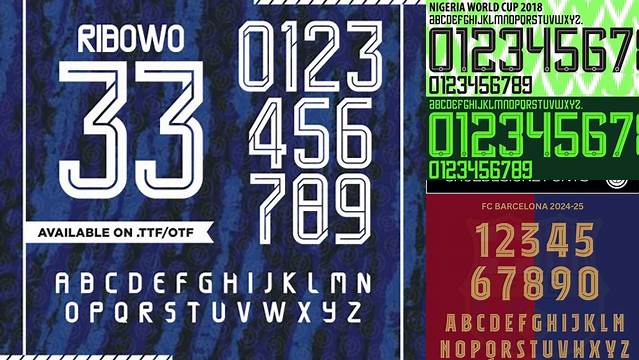
Free Soccer Jersey Fonts: Download & Customize Your Kit
Are you a soccer enthusiast looking to personalize your team's jerseys? Or perhaps a designer working on a soccer-themed project? The font you choose for the names and numbers on a jersey can significantly impact its overall look and feel. Finding the right soccer jersey font can be a game-changer, making your team stand out on the field or your design project truly shine. Lucky for you, there are numerous options available for soccer jersey fonts free download, and this article will guide you through everything you need to know.
Why Font Choice Matters for Soccer Jerseys
The font on a soccer jersey isn't just about legibility; it's a crucial element of the jersey's design. The font contributes significantly to the overall aesthetic, conveying the team's personality and style. A bold, modern font can project a sense of power and dynamism, while a more classic, elegant font can evoke tradition and history. The right font helps create a cohesive and professional look, ensuring that the team looks its best on the field. Choosing the perfect font isn't just about aesthetics; it's also about ensuring readability and visibility. The numbers and names on the back of a jersey need to be easily seen by spectators, referees, and even fellow players. A font that's too thin, too decorative, or too small can make it difficult to identify players, especially from a distance. This is why many sports fonts are designed with thick, clear lines and ample spacing. Beyond aesthetics and legibility, the font also plays a role in branding and marketing. Many professional soccer clubs have custom fonts that are unique to their brand, helping them stand out and create a distinctive identity. These fonts often become synonymous with the team, and fans recognize them instantly. By choosing the right font, you can create a sense of professionalism and unity for your team, whether you're playing in a local league or a national championship. The font on a soccer jersey is more than just letters and numbers; it's a reflection of the team's spirit and identity. So, taking the time to choose the perfect font is an investment in the team's overall image and success.
Key Considerations When Selecting a Font
When selecting a font for soccer jerseys, several factors come into play to ensure the final result is both aesthetically pleasing and functionally effective. Readability is paramount, as the names and numbers must be easily discernible from a distance. A font with clear, bold lines and adequate spacing between characters is ideal. Avoid fonts that are overly decorative or have thin strokes, as they can become difficult to read when printed on fabric and viewed from afar. The style of the font should align with the team's image and the overall design of the jersey. A modern, athletic-looking font might be suitable for a team with a contemporary style, while a more classic font could be a better fit for a team with a traditional aesthetic. Consider the font's personality – does it convey strength, speed, elegance, or something else? The font should complement the team's character and values. Another crucial factor is the legibility of numbers. In soccer, numbers are as important as names, so the font should ensure that each digit is easily distinguishable, even in the heat of the game. Look for fonts that have clear, well-defined numerals that won't be confused with each other (e.g., 1, 7, and 9 should be clearly different). You also need to think about the application and printing method. Some fonts may look great on a screen but don't translate well to fabric, especially when using certain printing techniques like heat transfer or screen printing. Before making a final decision, it's a good idea to test the font on a sample jersey or fabric to see how it looks in real life. Furthermore, consider any licensing restrictions associated with the font. While many fonts are available for free download, some may have limitations on commercial use. If you plan to use the font for a team that sells jerseys or merchandise, you'll need to ensure that you have the appropriate license. Finally, don't underestimate the importance of consistency. The font should be used consistently across all jerseys, training gear, and team branding materials to create a unified and professional look. This consistency helps build the team's identity and makes it easily recognizable.
Where to Find Soccer Jersey Fonts for Free
Finding the perfect font for your soccer jersey doesn't have to break the bank. There are numerous online resources where you can find high-quality soccer jersey fonts available for free download. These resources cater to a wide range of styles and preferences, ensuring you can discover the ideal font to match your team's aesthetic and needs. One of the most popular places to start your search is DaFont. This website boasts an extensive collection of fonts, many of which are free for personal use. You can easily search for sports-themed fonts or browse through various categories to find something that catches your eye. DaFont also provides a preview feature, allowing you to see how your team's name and numbers will look in a specific font before you download it. Another great resource is FontSpace, which offers a vast library of free fonts contributed by designers from around the world. FontSpace has a user-friendly interface that makes it easy to filter fonts by category, style, and license type. This is particularly helpful if you're looking for fonts that are free for commercial use, ensuring you can use them on jerseys that will be sold without any copyright concerns. Google Fonts is another excellent option, especially if you're looking for fonts that are web-friendly. While not all fonts on Google Fonts are specifically designed for sports jerseys, you can find many clean, legible fonts that work well for this purpose. The advantage of using Google Fonts is that they are optimized for online use, making them a great choice if you also need to use the font on your team's website or social media graphics. Websites like 1001 Free Fonts and Font Squirrel are also worth exploring. These platforms offer a diverse selection of free fonts, including some that are specifically designed for sports applications. Font Squirrel is particularly known for its curated collection of high-quality free fonts, many of which come with commercial-use licenses. When searching for free fonts, it's essential to pay attention to the license terms. Some fonts may be free for personal use only, while others may be available for commercial use. Make sure you understand the licensing restrictions before using a font, especially if you plan to sell jerseys or other merchandise featuring the font. Additionally, always download fonts from reputable sources to avoid any potential security risks.
Top Websites for Free Font Downloads
Navigating the world of free fonts can be overwhelming, but knowing the top websites for free font downloads can streamline your search. These platforms are reputable, offer a wide selection, and often provide clear licensing information, making your font selection process smoother and safer. DaFont stands out as a classic choice for free font enthusiasts. Its extensive library is categorized for easy browsing, including a dedicated section for sports and athletic fonts. Each font listing clearly indicates the license type, whether it's free for personal use, commercial use, or requires a donation to the author. DaFont's preview feature is invaluable, allowing you to visualize your team's name and numbers in various fonts before committing to a download. Another highly recommended website is FontSpace. With its vast collection contributed by designers worldwide, FontSpace offers a diverse range of styles, from modern and bold to classic and elegant. The site's filtering options are particularly useful, enabling you to sort fonts by category, style, and, most importantly, license type. This ensures you can easily find fonts that are free for commercial use, a crucial consideration for team jerseys and merchandise. Google Fonts is a powerhouse for web-friendly fonts, and while not exclusively sports-focused, it offers numerous clean and legible options suitable for soccer jerseys. The advantage of Google Fonts is their optimization for online use, making them ideal if you need font consistency across both print and digital media. Plus, all fonts on Google Fonts are open-source and free for commercial use, providing peace of mind regarding licensing. 1001 Free Fonts is another valuable resource, boasting a large collection with a variety of styles. The site's search functionality and categorization make it relatively easy to find sports-related fonts. However, it's essential to carefully review the license information for each font, as some may have restrictions on commercial use. Font Squirrel distinguishes itself with a curated selection of high-quality free fonts, many of which come with commercial-use licenses. This site is a favorite among designers for its emphasis on quality and its user-friendly interface. Font Squirrel also offers a Font Identifier tool, which can help you identify a font from an image, which can be useful if you're trying to match an existing team font. When exploring these websites, always exercise caution and download fonts only from reputable sources to avoid potential malware or copyright issues. Take the time to read the license agreements thoroughly to ensure you're using the fonts in accordance with their terms.
Popular Font Styles for Soccer Jerseys
When it comes to popular font styles for soccer jerseys, there are several categories that consistently stand out for their readability, aesthetic appeal, and suitability for athletic wear. Choosing the right font style can significantly enhance the overall look of your team's kit, so understanding the options is essential. Bold, sans-serif fonts are a perennial favorite for soccer jerseys. These fonts are characterized by their clean lines, lack of decorative serifs, and strong visual presence. Their legibility from a distance makes them ideal for player names and numbers, ensuring that they can be easily identified on the field. Examples of popular bold, sans-serif fonts include Arial Black, Helvetica Neue Bold, and Bebas Neue. These fonts project a sense of strength and modernity, making them a great choice for teams with a contemporary image. Slab-serif fonts offer a slightly different take on the bold aesthetic. These fonts have thicker serifs (the small decorative strokes at the ends of letters) than traditional serif fonts, giving them a more robust and impactful appearance. Slab-serif fonts can add a touch of vintage flair to a jersey while still maintaining excellent readability. Fonts like Rockwell Bold and ChunkFive are popular choices in this category. Script fonts, which mimic handwriting, can add a touch of elegance and personality to a soccer jersey. However, they should be used sparingly and with caution, as their legibility can sometimes be compromised, especially from a distance. If you choose a script font, opt for one that is relatively clean and easy to read, such as Brush Script MT or Pacifico. These fonts can be particularly effective for team names or slogans on the jersey, but are less suitable for player names and numbers. Modern and geometric fonts are another popular option, especially for teams that want to convey a cutting-edge image. These fonts often feature clean lines, sharp angles, and a minimalist design. Fonts like Futura, Avant Garde, and Montserrat fall into this category. They offer a sleek and contemporary look that can make a jersey stand out. In addition to these broad categories, there are also specialty sports fonts designed specifically for athletic wear. These fonts often incorporate design elements that evoke speed, motion, and energy. They may feature slanted lines, aerodynamic shapes, or other details that make them visually dynamic. When selecting a font style, consider the overall design of your jersey and the image you want to project. The font should complement the team's colors, logo, and playing style. It's also important to ensure that the font meets the requirements of your league or governing body, as some may have specific rules about font styles and sizes.
Examples of Fonts Commonly Used on Soccer Jerseys
To give you a clearer idea of the types of fonts that work well on soccer jerseys, let's look at some specific examples of fonts commonly used on soccer jerseys. These fonts have proven their effectiveness in terms of readability, style, and overall aesthetic appeal, making them popular choices for teams at various levels of play. Bebas Neue is a widely recognized and highly regarded sans-serif font that is often seen on professional and amateur soccer jerseys alike. Its tall, narrow letterforms create a strong visual impact, and its clean lines ensure excellent legibility from a distance. Bebas Neue is a versatile font that works well with a variety of jersey designs and team colors. Arial Black is another classic sans-serif font that is frequently used on soccer jerseys. Its bold, blocky letters make a statement and ensure that player names and numbers are highly visible. Arial Black is a reliable and straightforward choice that prioritizes readability above all else. Helvetica Neue Bold is a sophisticated and modern sans-serif font that is a favorite among designers for its clean lines and balanced proportions. It exudes a sense of professionalism and elegance, making it a great choice for teams that want to project a polished image. Helvetica Neue Bold is highly legible and adaptable, working well in a variety of contexts. Futura is a geometric sans-serif font that conveys a sense of innovation and forward-thinking. Its clean, minimalist design gives it a contemporary feel, making it suitable for teams with a modern aesthetic. Futura is particularly effective for team names and logos, adding a touch of sophistication to the jersey. Montserrat is a versatile sans-serif font that has gained popularity in recent years. Its clean lines and balanced letterforms make it highly readable, and its modern style makes it a great fit for soccer jerseys. Montserrat is available in a variety of weights, giving you flexibility in your design choices. Rockwell Bold is a slab-serif font that adds a touch of vintage flair to a soccer jersey. Its thick, blocky serifs give it a strong and impactful appearance, and its excellent legibility makes it a practical choice. Rockwell Bold is often used for team names and numbers, providing a distinctive and memorable look. In addition to these specific fonts, many teams also opt for custom fonts that are designed specifically for their brand. These custom fonts can help a team stand out and create a unique identity. However, designing a custom font can be a costly and time-consuming process, so it's not always feasible for smaller teams or leagues. When selecting a font for your soccer jersey, consider your team's image, the overall design of the jersey, and the requirements of your league or governing body. Choose a font that is both visually appealing and highly legible, ensuring that your team looks its best on the field.
Tips for Using Fonts Effectively on Jerseys
Using fonts effectively on soccer jerseys involves more than just selecting a visually appealing typeface. It requires careful consideration of several factors to ensure that the final result is both aesthetically pleasing and functionally effective. Here are some tips for using fonts effectively on jerseys to help you create a professional and impactful look for your team. Prioritize Readability. The most important factor when choosing a font for a soccer jersey is readability. Player names and numbers need to be easily visible from a distance, so opt for fonts with clear, well-defined letterforms and ample spacing between characters. Avoid fonts that are overly decorative or have thin strokes, as they can become difficult to read when printed on fabric and viewed from afar. Consider the Font Size. The font size is just as important as the font style. Player names and numbers should be large enough to be easily read, but not so large that they overwhelm the jersey design. The ideal font size will depend on the size of the jersey and the length of the names, but as a general rule, player names should be at least 2-3 inches tall, and numbers should be at least 8-10 inches tall. Choose a Font That Complements the Jersey Design. The font you choose should complement the overall design of the jersey, including the colors, patterns, and logos. A modern, athletic-looking font might be suitable for a contemporary jersey design, while a more classic font could be a better fit for a traditional jersey. Think about how the font will interact with other design elements on the jersey and choose a font that creates a cohesive and harmonious look. Use Contrast to Enhance Visibility. Contrast is key to ensuring that the font stands out against the jersey fabric. Use a font color that contrasts strongly with the jersey color to make the names and numbers pop. For example, if the jersey is dark, use a light-colored font, and vice versa. Avoid using colors that are too similar to the jersey color, as this can make the font difficult to read. Be Consistent. Consistency is crucial for creating a professional and unified look. Use the same font and font size for all player names and numbers on the jerseys. If you're using a different font for the team name or logo, make sure that it complements the player names and numbers font. Avoid using too many different fonts on the same jersey, as this can create a cluttered and disorganized look. Pay Attention to Spacing. Proper spacing between letters and words is essential for readability. Adjust the kerning (the space between individual letters) and the tracking (the overall spacing between letters in a word) to ensure that the font looks balanced and easy to read. Overlapping letters or crowded spacing can make the font difficult to decipher. Test the Font on Fabric. Before finalizing your font choice, it's a good idea to test the font on a sample of the jersey fabric. Some fonts may look great on a screen but don't translate well to fabric, especially when using certain printing techniques like heat transfer or screen printing. Printing a sample will allow you to see how the font looks in real life and make any necessary adjustments. By following these tips, you can use fonts effectively on your soccer jerseys to create a professional, stylish, and easily readable look for your team.
Choosing the right font for your soccer jersey is a crucial step in creating a professional and visually appealing kit. With the abundance of soccer jersey fonts free download options available, you can find the perfect font to match your team's style and needs without breaking the bank. Remember to prioritize readability, consider the font's style and personality, and ensure it complements your jersey design. By following the tips and guidelines outlined in this article, you'll be well-equipped to select and use fonts effectively, making your team stand out on the field. So go ahead, explore the world of free fonts, and create a soccer jersey that reflects your team's unique identity and spirit!